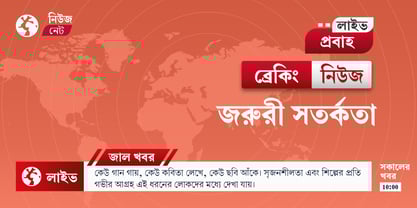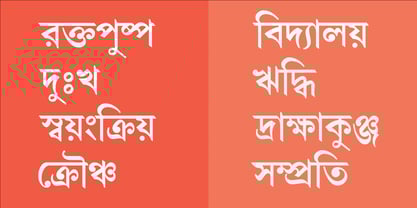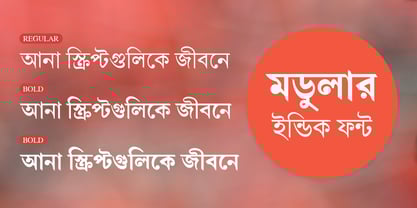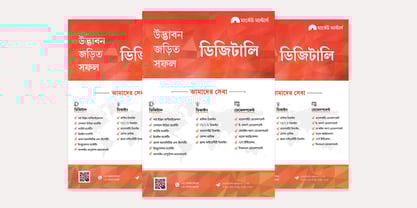
Shree Bangali 0550
by Modular InfoTech
The Shree Bangali 0550 Font Family was designed by Modular Infotech and published by Modular InfoTech. Shree Bangali 0550 contains 4 styles and family package options.
Shree Bangali 0550 is a versatile Text typeface family designed with Regular, Bold, and Black styles, each accompanied by Italics for expressive variation. The design harmonizes the elegance of traditional calligraphy with modern precision, resulting in letterforms that are clear, balanced, and visually engaging. Its multiple weights provide flexibility without compromising consistency, allowing the typeface to adapt gracefully across diverse design contexts. Whether used for extended reading or striking displays, Shree Bangali 0550 maintains cultural authenticity while delivering refined readability.
This typeface is an excellent choice for publishing, newspapers, and magazines where long-form readability is key. It also performs effectively in branding, advertising, posters, and corporate communication, where strong visual impact is required. Its adaptability to both print and digital media ensures that it meets the demands of contemporary design while retaining the warmth of Bengali script.